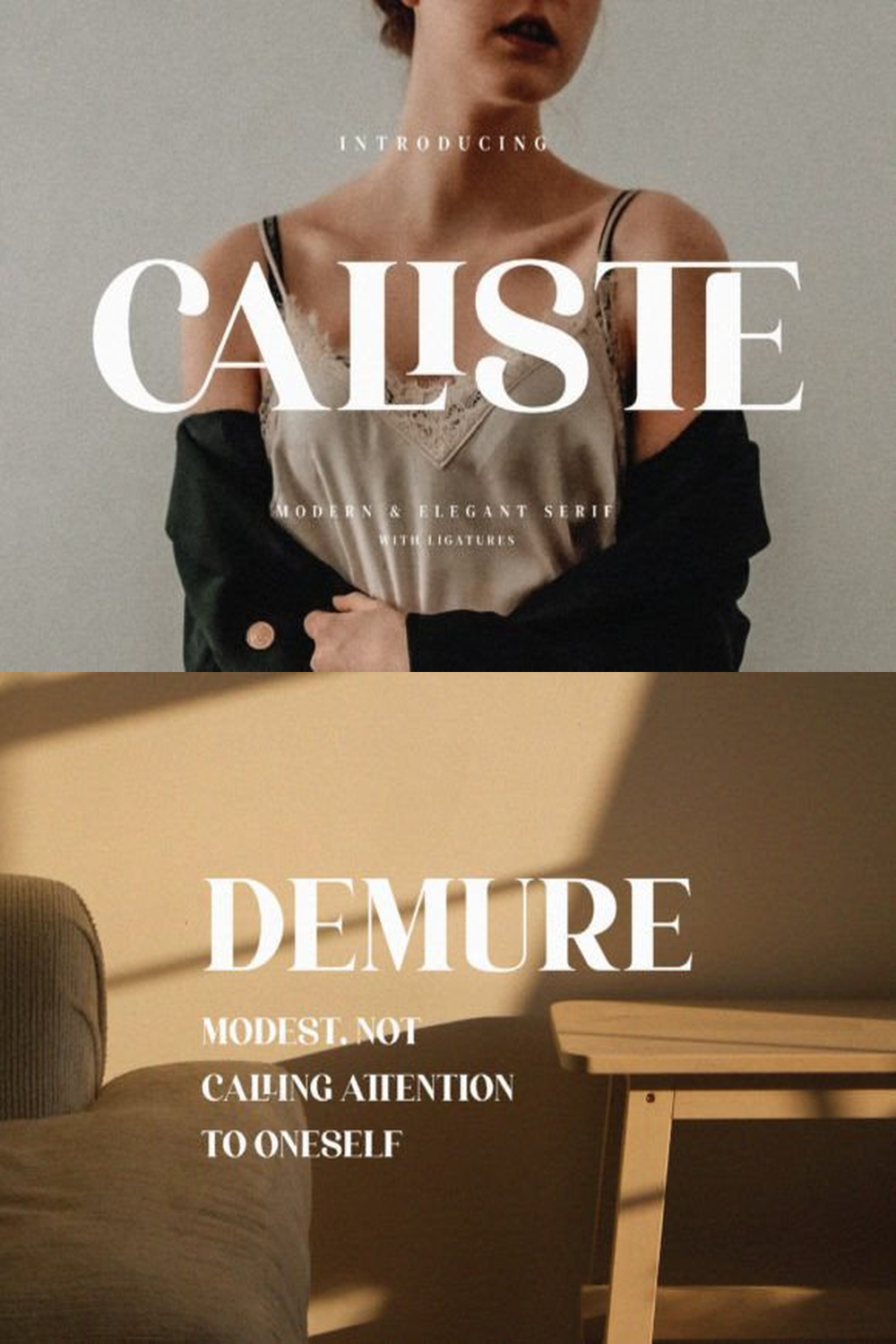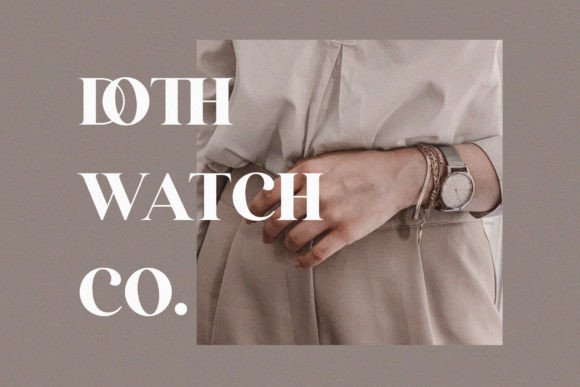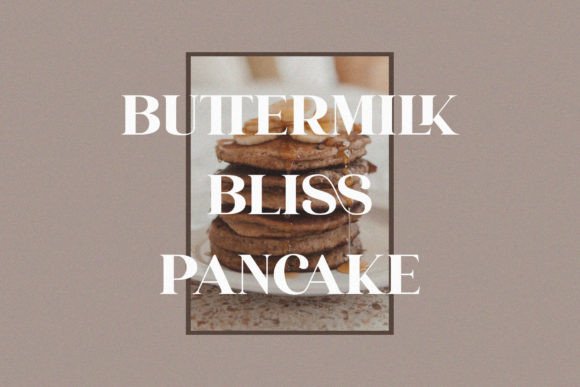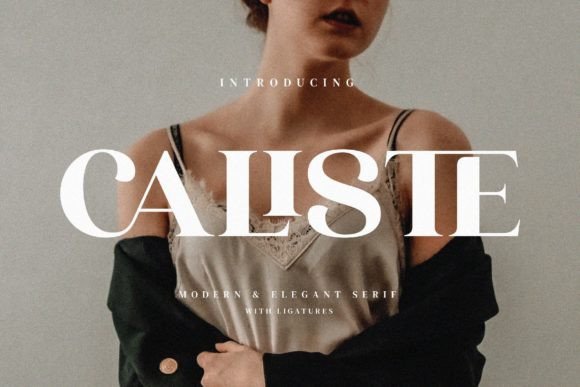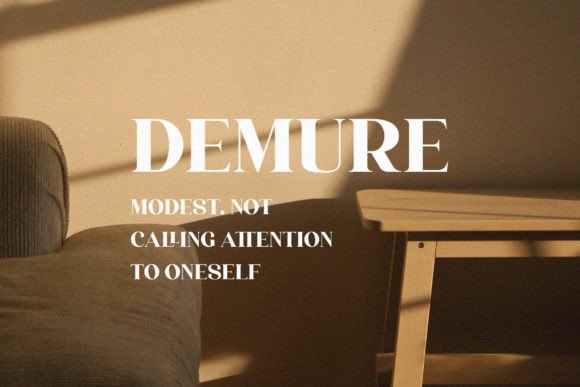
Caliste Font
About the Caliste Font
Elevate your designs with Caliste Font, a font that combines sophistication with readability. Caliste is an elegant and bold serif font. Fall in love with its incredibly versatile style and use it to create gorgeous wedding invitations, beautiful stationary art, eye-catching social media posts, and much more!
Caliste’s elegant boldness makes it ideal for headlines, branding materials, and short-form content like invitations or social media graphics. Its refined serifs lend a touch of sophistication, but its weight prevents it from feeling delicate. Avoid using Caliste for body text or lengthy paragraphs; its strong character isn’t suited to extended reading.
This font exudes confidence and timeless style. It would be a perfect choice for luxury brands, high-end products, or projects requiring a touch of classic elegance.
Pair Caliste with a clean sans-serif like Open Sans for a modern contrast, or a playful script font such as Great Vibes for a more romantic feel. For a more formal look, consider pairing it with a neutral serif like Garamond.